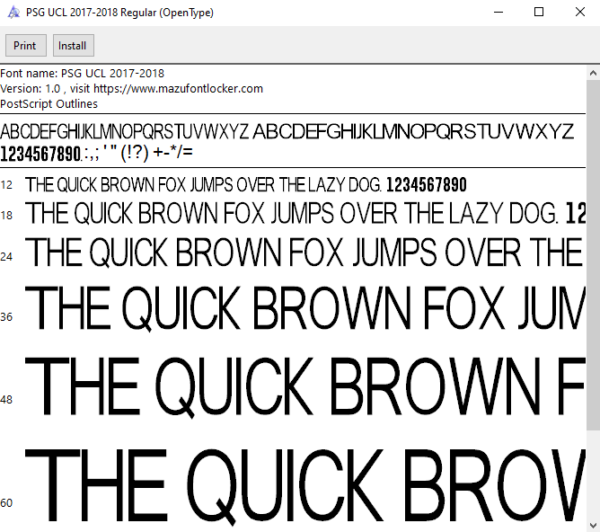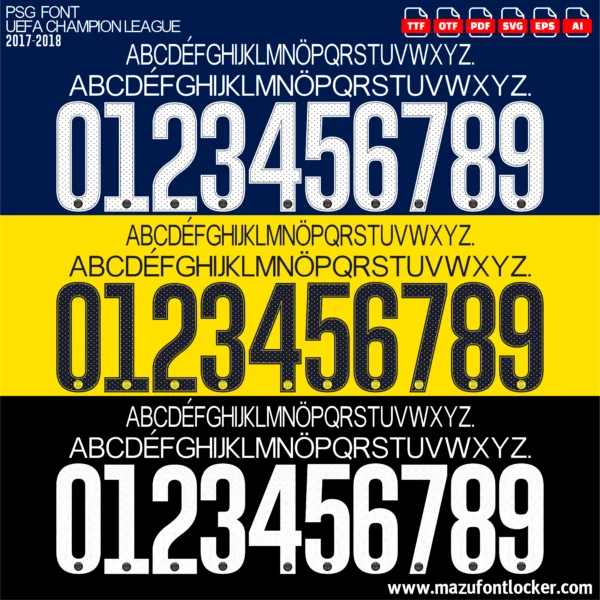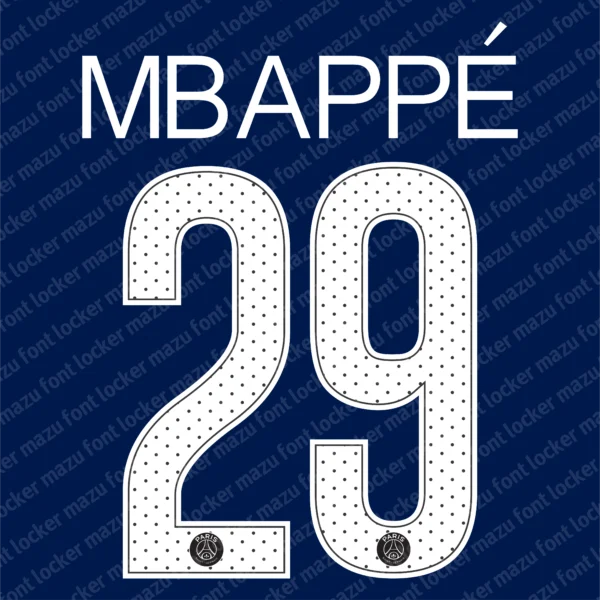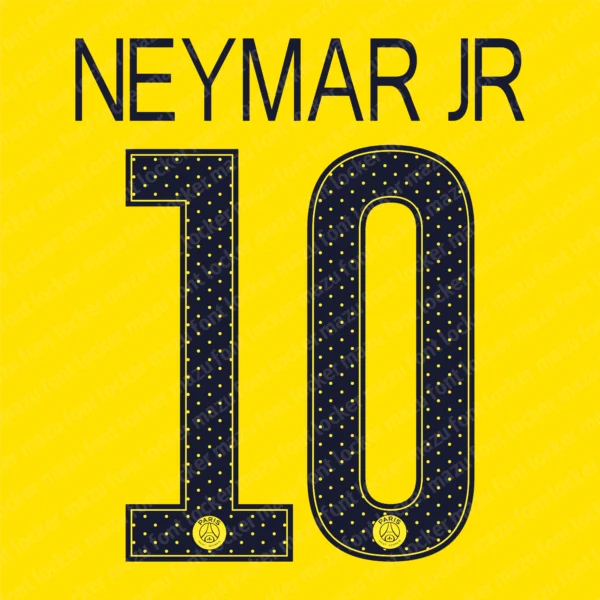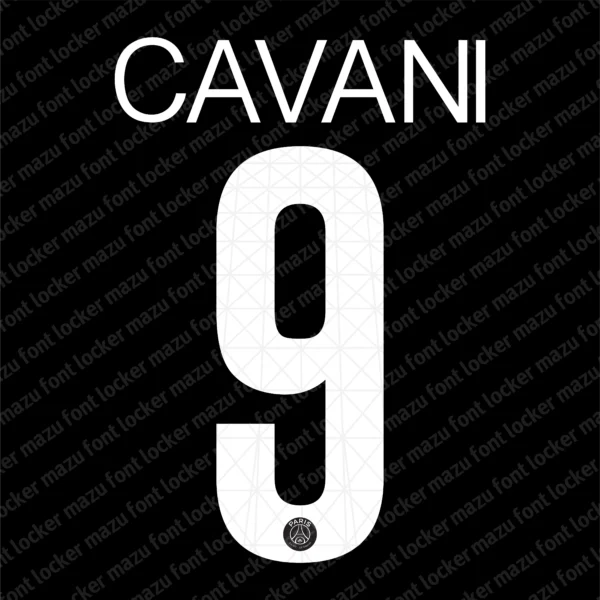
PSG 2017-2018 Font Vector – Magnificent Parisian Champions Masterpiece
Download the PSG 2017-2018 Font Vector (AI, EPS, SVG, PDF, OTF, TTF) and relive the electrifying Parisian spectacle that dazzled football fans across France and Europe, featuring the iconic match lettering worn during Paris Saint-Germain’s star-studded 2017-2018 campaign as they dominated domestic competitions with style, power, and elegance.
This premium font captures the sleek, sophisticated, and championship-driven typography that perfectly embodies the spirit of Les Parisiens — delivering elite French flair, world-class ambition, unrivaled confidence, attacking brilliance, and the glamorous football culture that transformed PSG into one of Europe’s most feared and celebrated football giants.
PSG 2017-2018 Font Vector – Stunning Parisian Champions Typeface
The PSG 2017-2018 Font Vector is a premium typeface that accurately recreates the official match lettering worn by Paris Saint-Germain during the 2017-2018 season. This high-quality vector font kit captures the bold, elegant, and modern typography that accompanied one of the most exciting eras in PSG history.
Designed for professional designers, football enthusiasts, and PSG supporters, the PSG 2017-2018 Font Vector delivers authentic results for jersey mockups, fan merchandise, retro football projects, social media graphics, and matchday designs. It perfectly complements the iconic navy-blue kits worn by Les Parisiens throughout the 2017-2018 campaign.
Why Choose PSG 2017-2018 Font Vector
This font stands out thanks to its faithful recreation of the official shirt lettering used by Paris Saint-Germain during the 2017-2018 season. Every character has been carefully crafted to match the authentic player names and numbers seen on the pitch. Whether you are designing realistic kit concepts or creating football-themed artwork, the PSG 2017-2018 Font Vector delivers professional-quality authenticity.
The letterforms feature a clean, athletic, and contemporary design that reflects PSG’s elite status in European football. The balanced proportions and sharp detailing provide excellent readability while maintaining the club’s sophisticated Parisian identity.
The numerals are bold, modern, and highly recognizable, closely matching the official squad numbers used throughout the 2017-2018 season. The vector format ensures perfect scalability for both digital and print applications.
• Complete uppercase A–Z and numbers 0–9 in authentic PSG 2017-2018 style
• Includes accurate crest glyph positioning for realistic jersey customization
PSG 2017-2018 Season
The 2017-2018 season marked a historic period for Paris Saint-Germain. Following the arrivals of superstar talents such as Neymar Jr. and Kylian Mbappé, PSG dominated French football with an exciting attacking style and remarkable squad depth.
During the campaign, PSG won the Ligue 1 title, Coupe de France, Coupe de la Ligue, and Trophée des Champions, completing a remarkable domestic quadruple. The team showcased world-class talent, entertaining football, and established itself as one of Europe’s elite clubs.
The PSG 2017-2018 Font Vector is an independently designed typeface package created to replicate the official shirt lettering style used by Paris Saint-Germain during the 2017-2018 season. It is ideal for retro football projects, jersey customization, fan artwork, historical recreations, and sports design work.